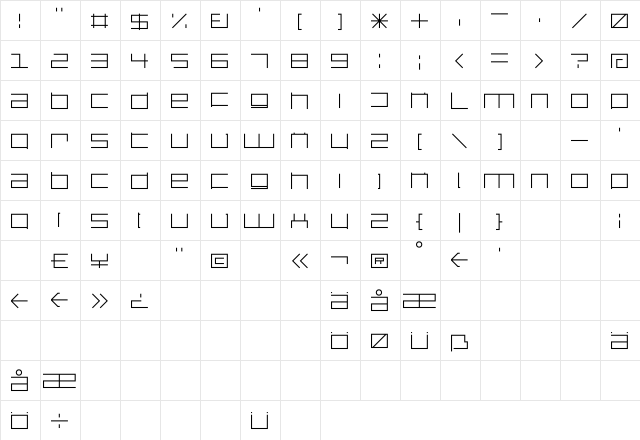
DS SQR35 Regular Font Preview
DS SQR35 Regular
DS SQR35 Regular Font Details
Design Context for DS SQR35 Typeface
DS SQR35 offers clean, dependable letterforms without strong stylistic allegiance, making it a practical choice for designers who need flexibility.